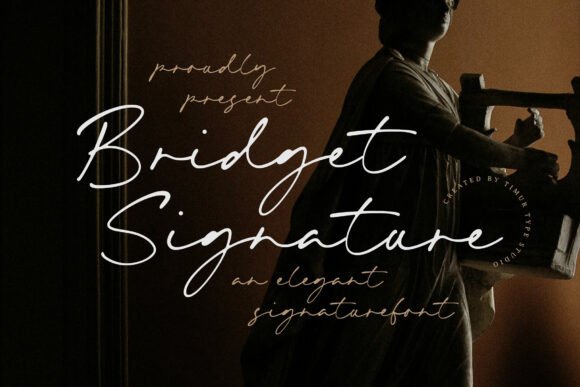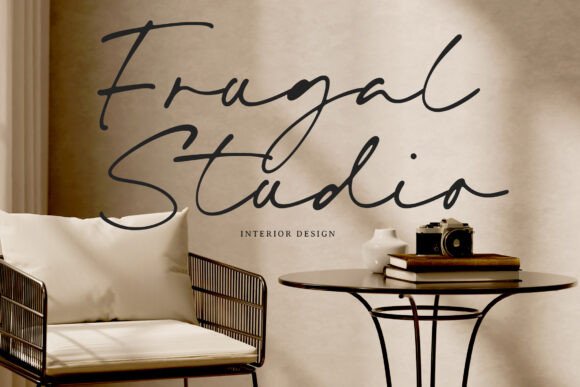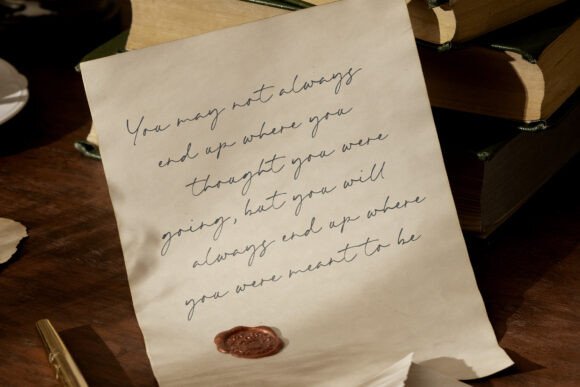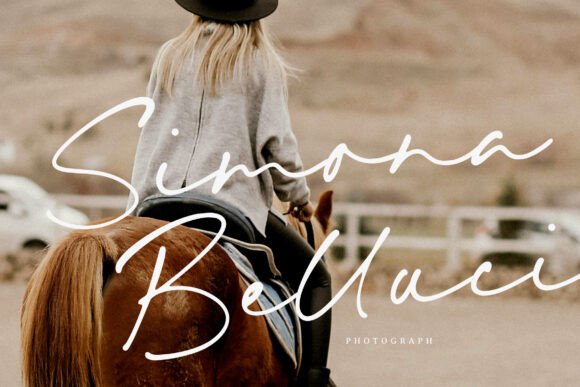
Bridget Signature Font
About the Bridget Signature Font
The Bridget Signature Font offers a perfect balance of form and function for your design needs. Bridget Signature is an Elegant Signature Font
This font is an elegant and stylish script font that mimics the fluidity of natural handwriting. With its smooth curves, delicate strokes, and sophisticated flair, it’s perfect for logos, branding, invitations, and any design that calls for a touch of luxury and charm.
Bridget Signature excels in applications requiring a touch of refined elegance. It’s ideal for logos, wedding invitations, short quotes on marketing materials, and high-end product packaging where a sense of luxury is paramount. However, its delicate strokes and flowing nature make it unsuitable for body text or UI elements; extended reading would be difficult.
Pairing Bridget Signature with a clean sans-serif like Montserrat or a modern serif such as Playfair Display creates a balanced and sophisticated aesthetic. For a more playful contrast, consider pairing it with a geometric sans-serif like Futura. These pairings provide strong visual counterpoints to Bridget’s flowing script, ensuring readability and visual interest.
The overall personality of Bridget Signature is sophisticated and elegant, conveying a sense of high-end quality and timeless style. It is best suited for brands that project luxury, exclusivity, and refined taste.
Bridget Signature Font Usage Examples
Bridget Signature Font Example